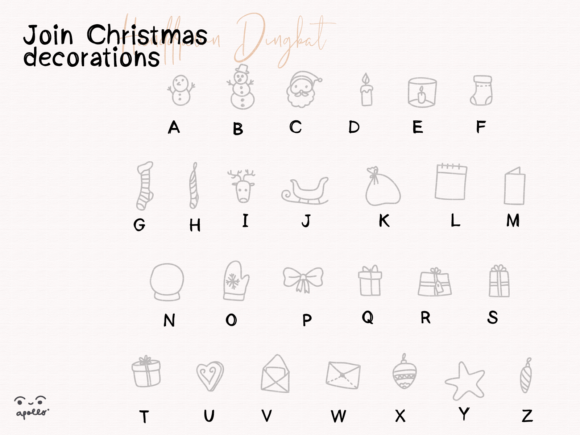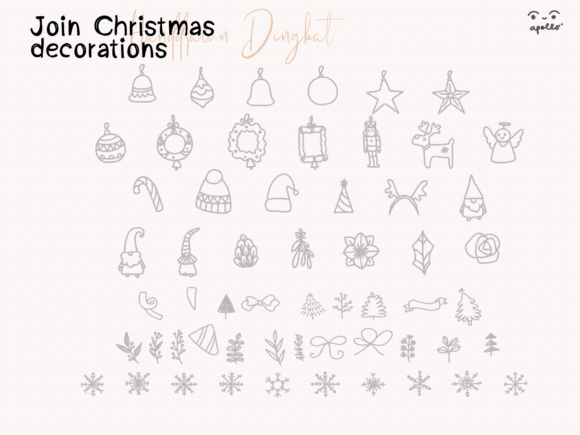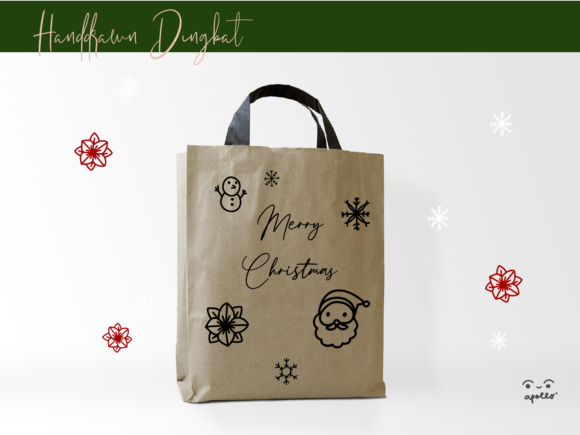
Join Christmas Decorations Font
About Join Christmas Decorations Font
Introducing “Join Christmas Decorations,” a charming hand-drawn dingbats font that captures the festive spirit of Christmas. With its delightful collection of Christmas party elements and decorations, this font is the perfect choice for a variety of creative projects, including invitation embellishments, wall art, beverage logos, seamless patterns, and more.
“Join Christmas Decorations” features a wide range of hand-drawn symbols inspired by the joyous and celebratory atmosphere of Christmas. From Christmas trees, ornaments, and stockings to snowflakes, presents, and candy canes, this font offers a delightful assortment of doodles that beautifully capture the essence of the holiday season.
With its playful and enjoyable designs, “Join Christmas Decorations” adds a touch of whimsy and charm to your creative endeavors. Whether you’re designing invitations for a Christmas party, creating festive wall art to decorate your home, or crafting a unique beverage logo with a holiday theme, this dingbats font provides an array of decorative elements to enhance your designs.
The versatility of “Join Christmas Decorations” allows you to use it in various ways. You can incorporate the individual symbols as embellishments or create seamless patterns by combining multiple elements. The hand-drawn style adds a personal and artistic touch to your projects, making them stand out with a unique and festive flair.
Embrace the festive spirit and let “Join Christmas Decorations” inspire your creativity. Whether you’re creating holiday-themed invitations, designing captivating wall art, or adding a touch of Christmas to your branding materials, this dingbats font is the perfect companion. The whimsical and enjoyable symbols will bring a warm and festive atmosphere to your designs, spreading the joy of Christmas to all who see them.
So, gather your creative ideas and join the celebration with “Join Christmas Decorations” doodle font. Let the holiday spirit shine through your designs and create a memorable and joyful experience for your audience.